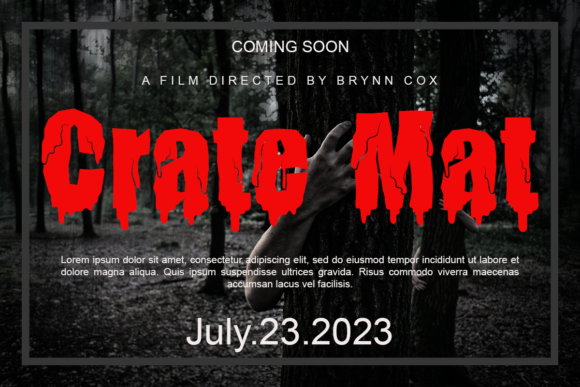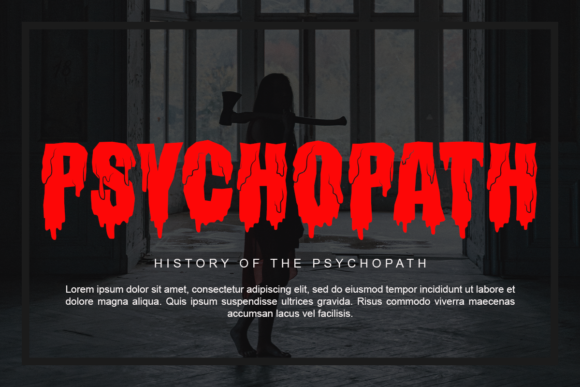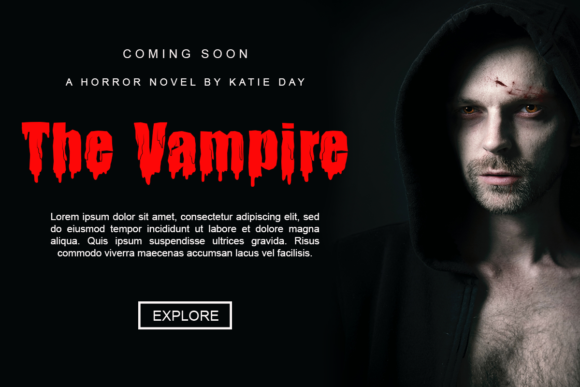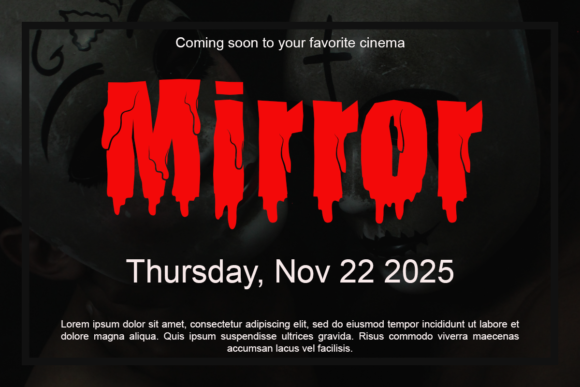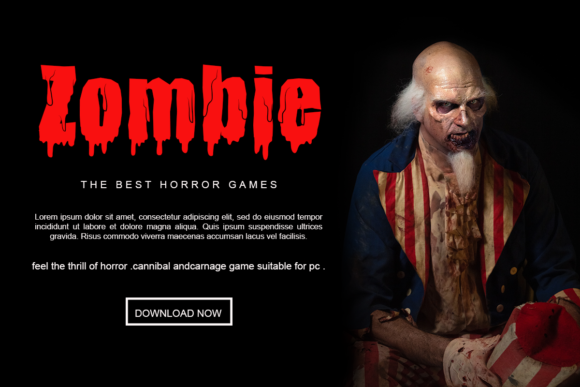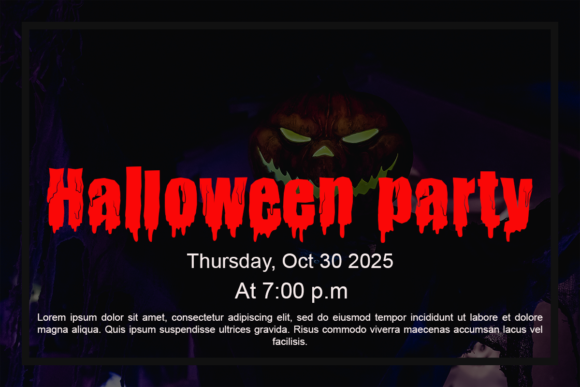
Introduction to Creepy Blood Font Font
Fonts play a crucial role in design, and the Creepy Blood Font font is a typeface that brings both character and versatility to any project. Whether you’re working on a branding project, a website, or a print design, the Creepy Blood Font font offers a unique style that can elevate your work.
Creepy Blood is a horror looking and scary display font.
This font is suitable for designs such as t-shirts, sportswear, logos, advertisements, clothing, and more .
The Creepy Blood Font font is more than just a typeface – it’s a design tool that helps you communicate your message with style and clarity. Its unique character set and versatile design make it suitable for a wide range of applications, from elegant invitations to bold headlines.
With its carefully crafted letterforms and balanced proportions, the Creepy Blood Font font ensures readability and visual appeal across all mediums.
The Creepy Blood Font font stands out with its unique design, exceptional readability, and versatility across various design applications.